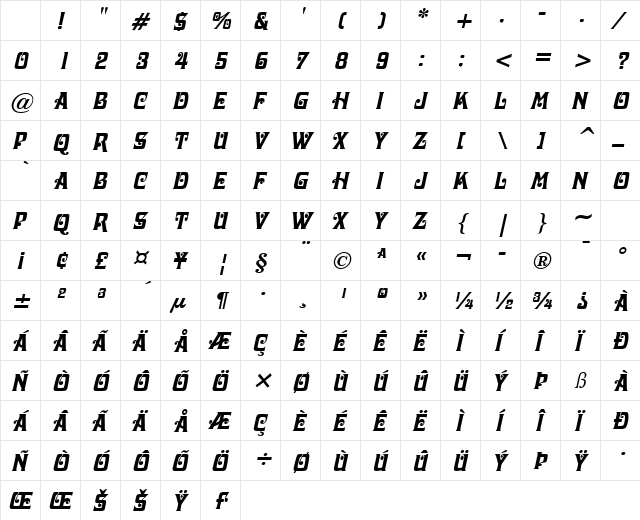
Davis is a composed and adaptable typeface that performs quietly and consistently across a wide range of design contexts. The slanted form adds forward momentum and visual energy.